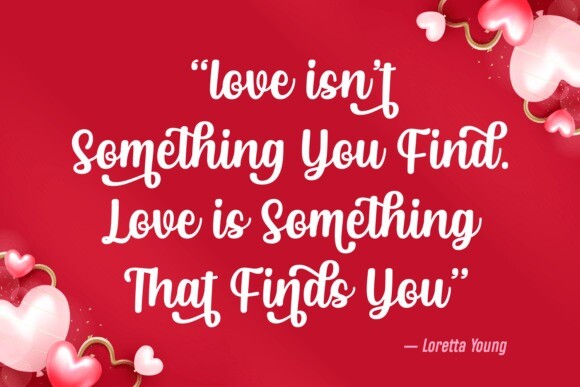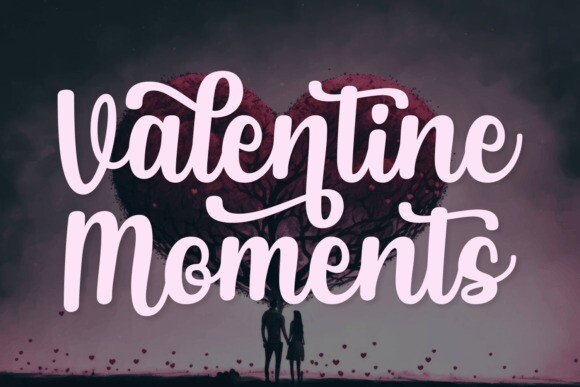
Sprinkle Caramel Font
Sprinkle Caramel Font is a sweet and friendly handwritten font. Its natural and unique style makes it incredibly fitting to a large pool of designs. The only limit is your imagination!